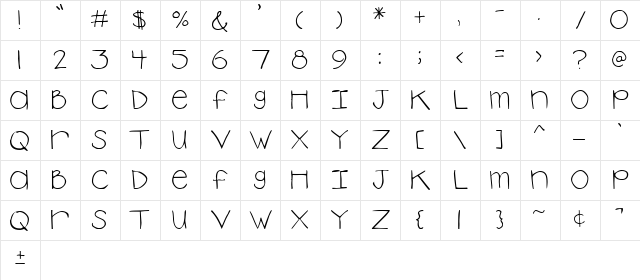
2Peas Honeybee Regular
Design Context for 2Peas Honeybee
2Peas Honeybee is a composed and adaptable typeface that performs quietly and consistently across a wide range of design contexts.